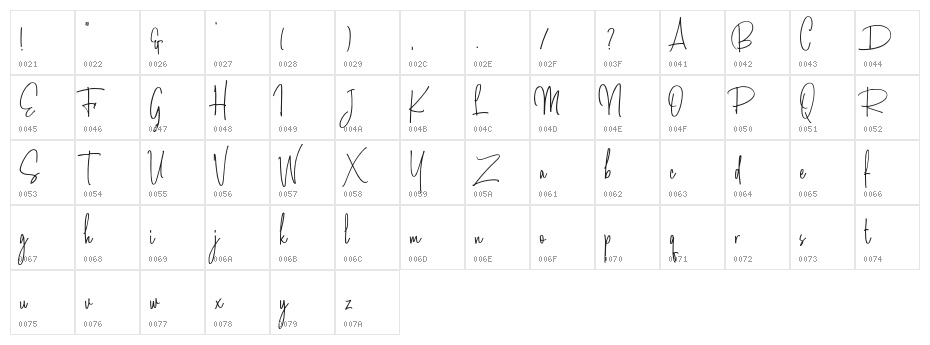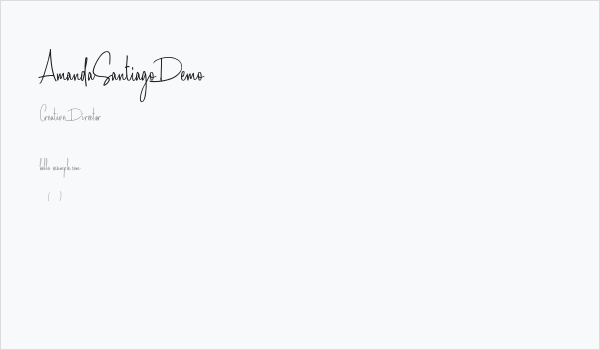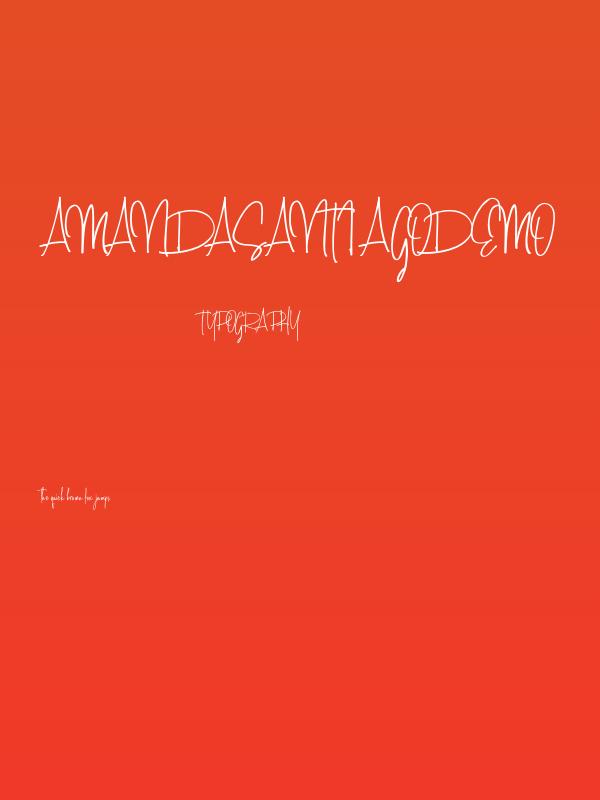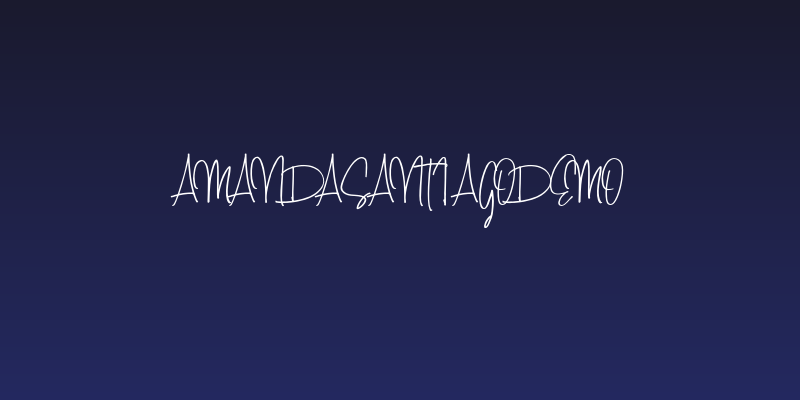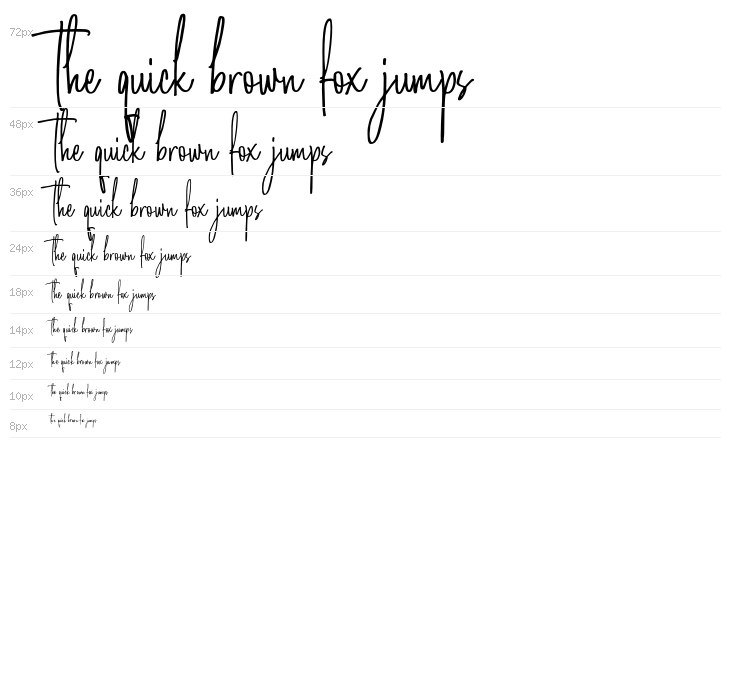
AmandaSantiagoDemo Font
AmandaSantiagoDemo Description
This font features a lively and expressive handwritten style, characterized by its fluid and dynamic strokes. The uppercase letters are bold and slightly irregular, giving a sense of spontaneity and artistic flair. The lowercase letters maintain a consistent flow, with elegant loops and curves that enhance its handwritten appeal. The overall design is playful yet sophisticated, making it suitable for creative and personal projects. The special characters are integrated seamlessly, maintaining the font's unique style. This font exudes a sense of individuality and creativity, perfect for making a statement in any design.
| Use Case | Logos, Headlines, Personal projects |
| Proposed Projects | Ideal for invitations, greeting cards, personal branding, and creative projects. |